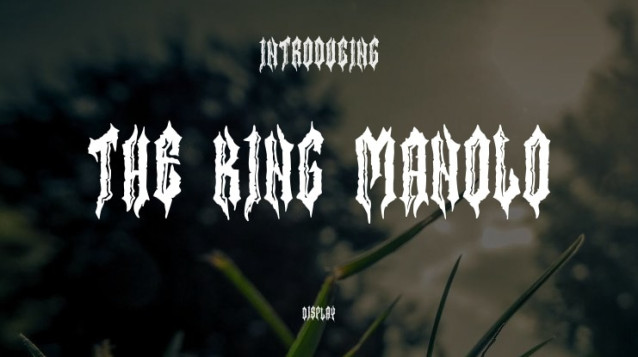
The King Manolo Font
The King Manolo Font is a Gothic blackletter font that channels the timeless elegance of medieval script. Its intricate and sharp letterforms evoke a sense of historical richness and sophistication. Ideal for projects requiring a touch of Gothic allure, The King Manolo adds a bold and distinguished aesthetic to your designs.